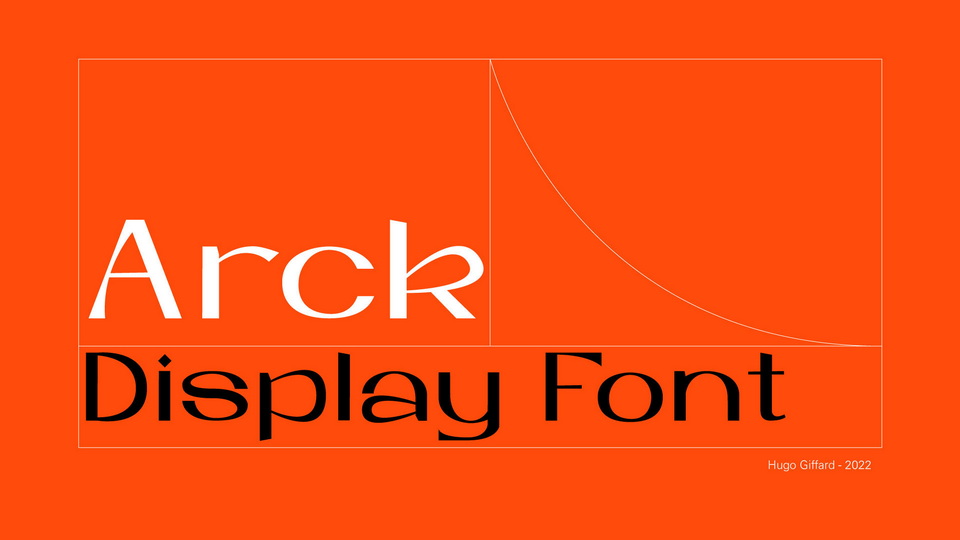
Download Arck font, a contemporary display typeface based on wide and curve-friendly characters. With its modern shapes and contrast Arck is perfect to use in editorial designs, posters, websites, packaging, branding, logo, and so on.
Designer: Hugo Giffard